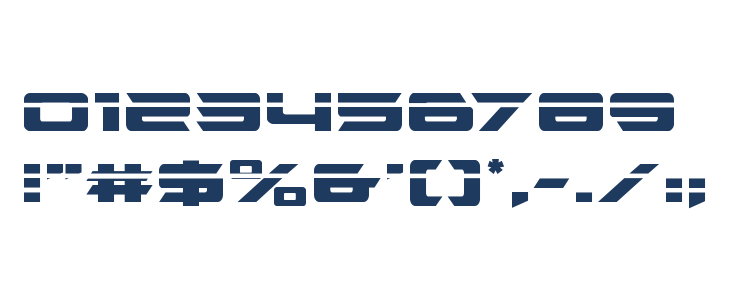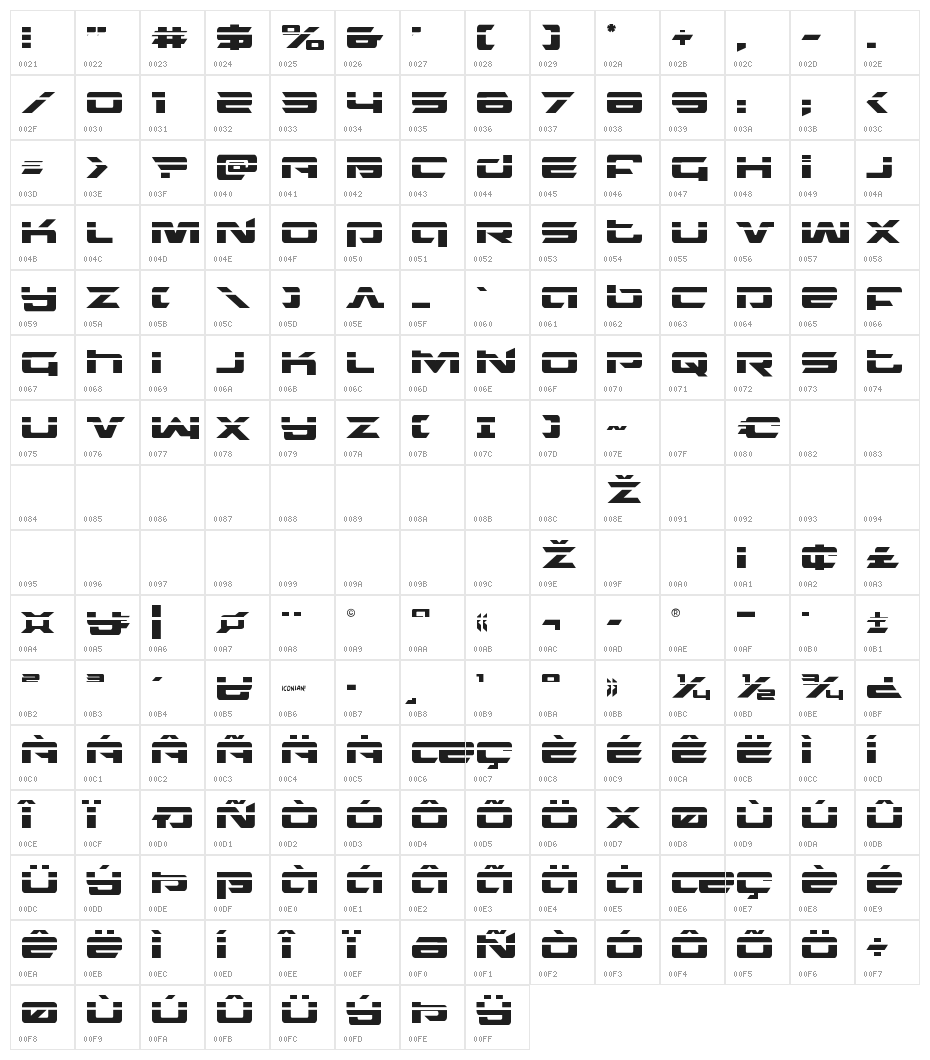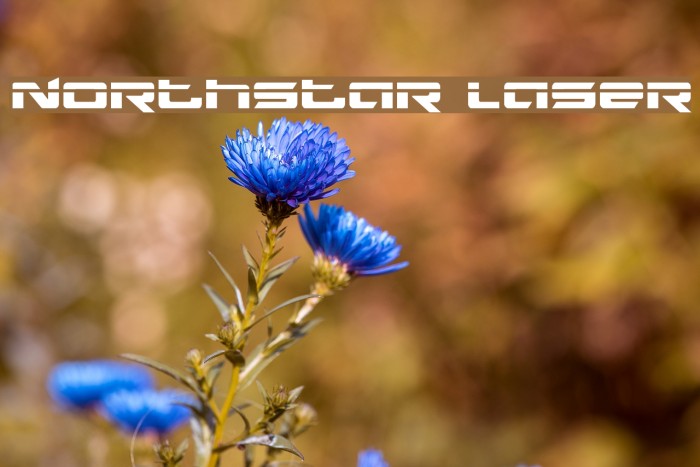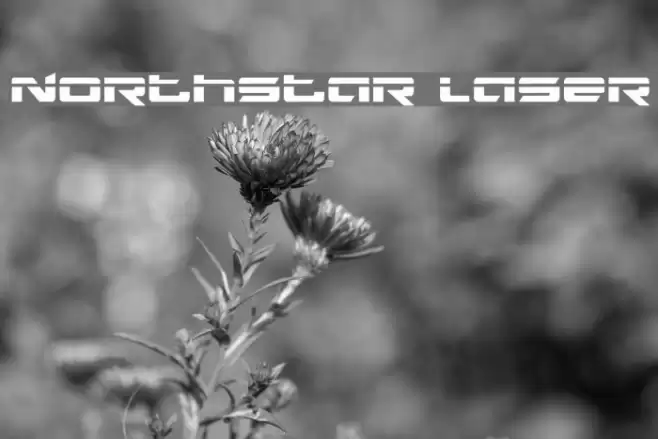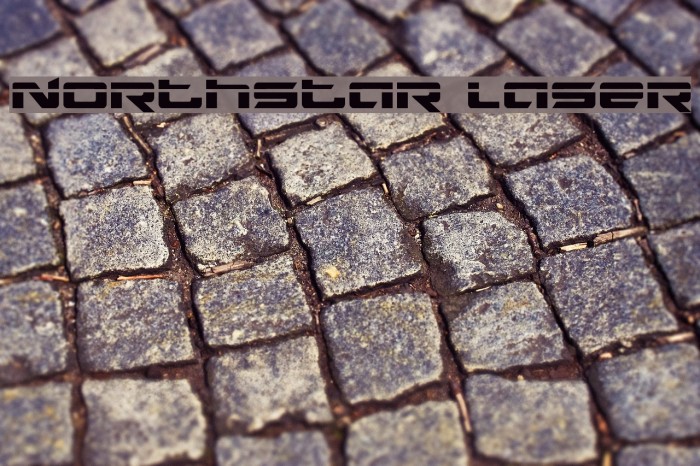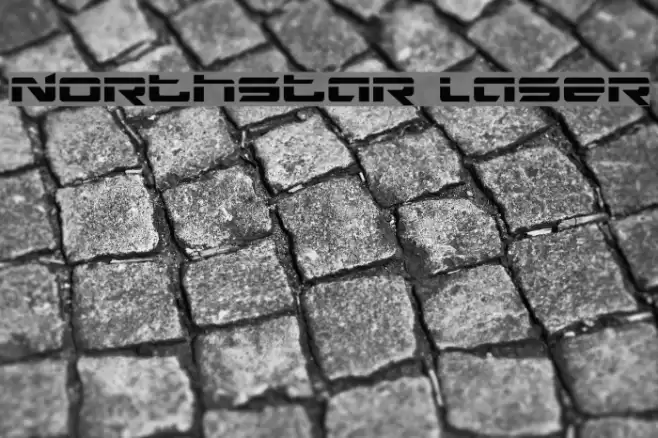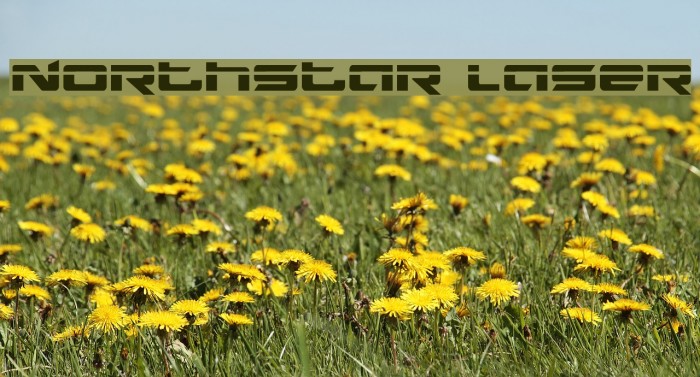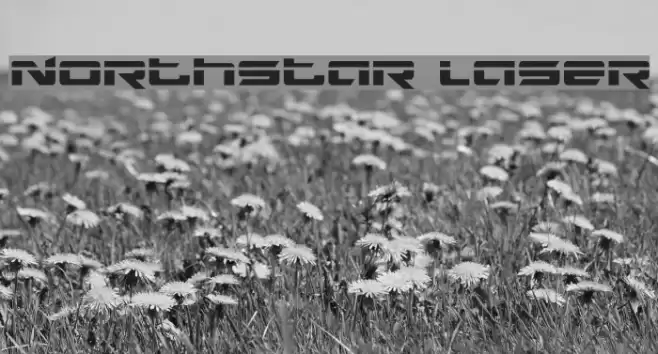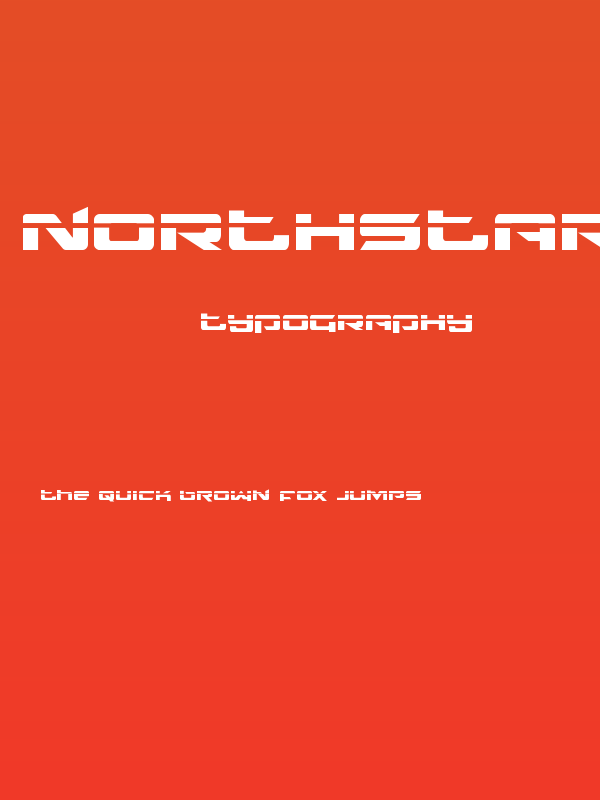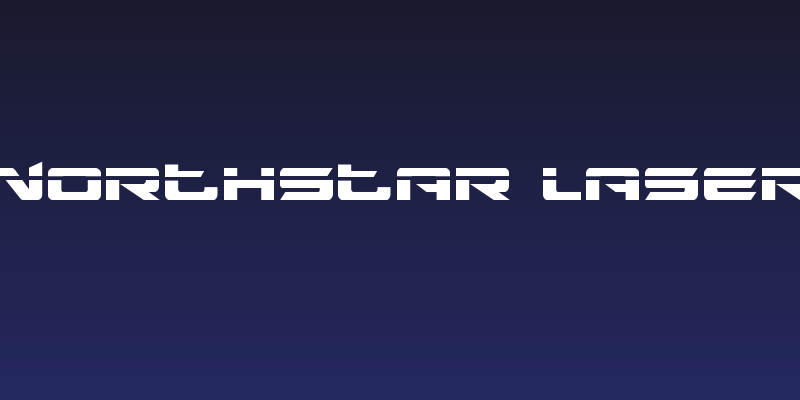
Northstar Laser Font
Northstar Laser Description
This font features a futuristic and angular design, characterized by its sharp edges and geometric shapes. The letters are bold and have a distinct, modern appearance, making them stand out prominently. The uppercase and lowercase letters maintain a consistent style, with a uniform thickness that adds to the font's cohesive look. Numbers and special characters are designed to match the overall aesthetic, ensuring a seamless integration across different uses. The font's unique style is ideal for projects that require a modern and tech-inspired look.